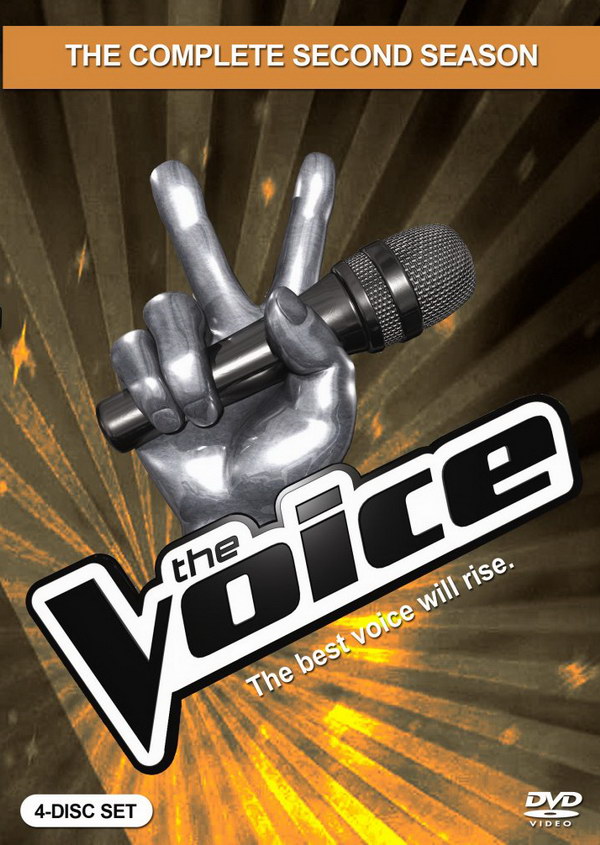
The Voice Font
Fonts in UseThe Voice is a popular television singing competition where aspiring singers from across the country audition for a panel of celebrity coaches to discover the best vocal talent. The winner receives a recording contract and the title of "The Voice".
The logo of The Voice comprises a microphone placed within a hand gesturing in a "V" shape, with the lettering of "The Voice" being tilted. The font used for "The" is Serpentine Sans ICG Light Oblique, and for "Voice" it is Serpentine Sans ICG Bold Oblique, both of which are commercial fonts.